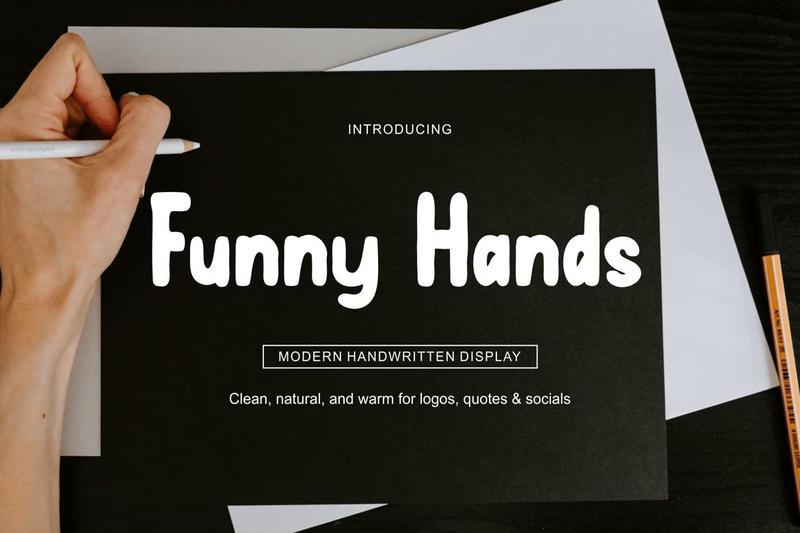
Introducing our new product **Funny Hands** – Clean Handwritten Font
**Funny Hands** – Clean Handwritten Font is a bold and authentic display font. The font is suitable for any branding project like logo, esport, and many more. outstanding in a wide range of contexts.